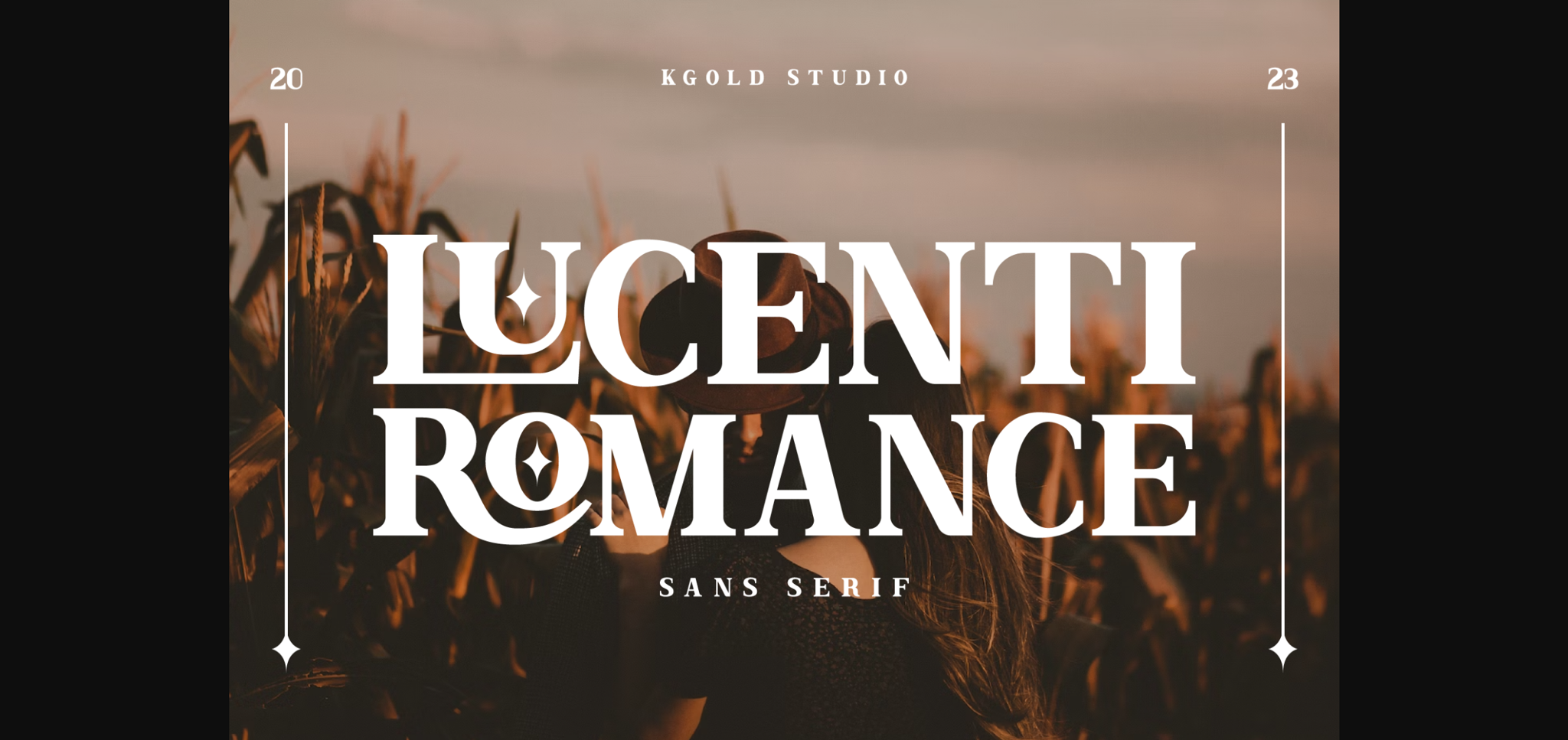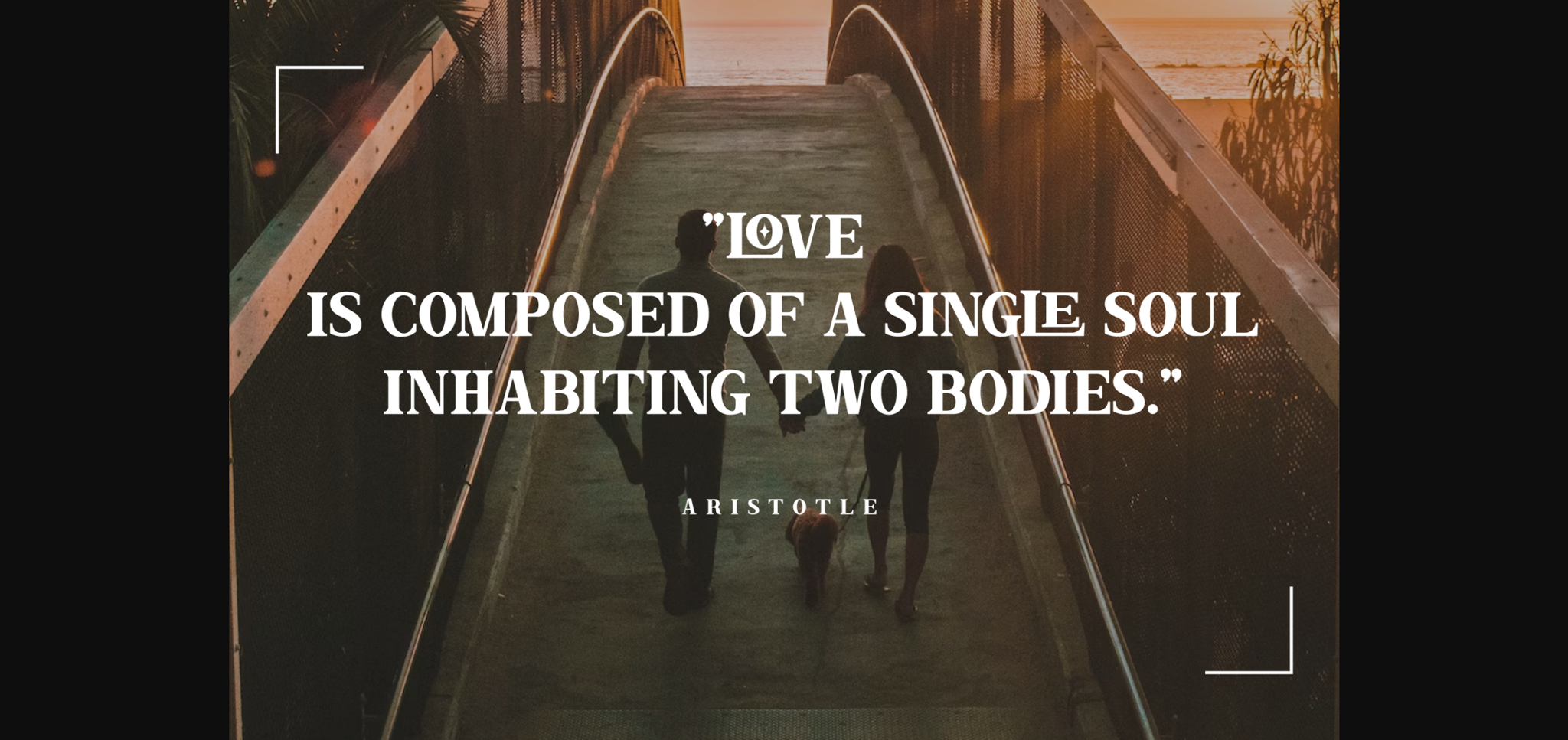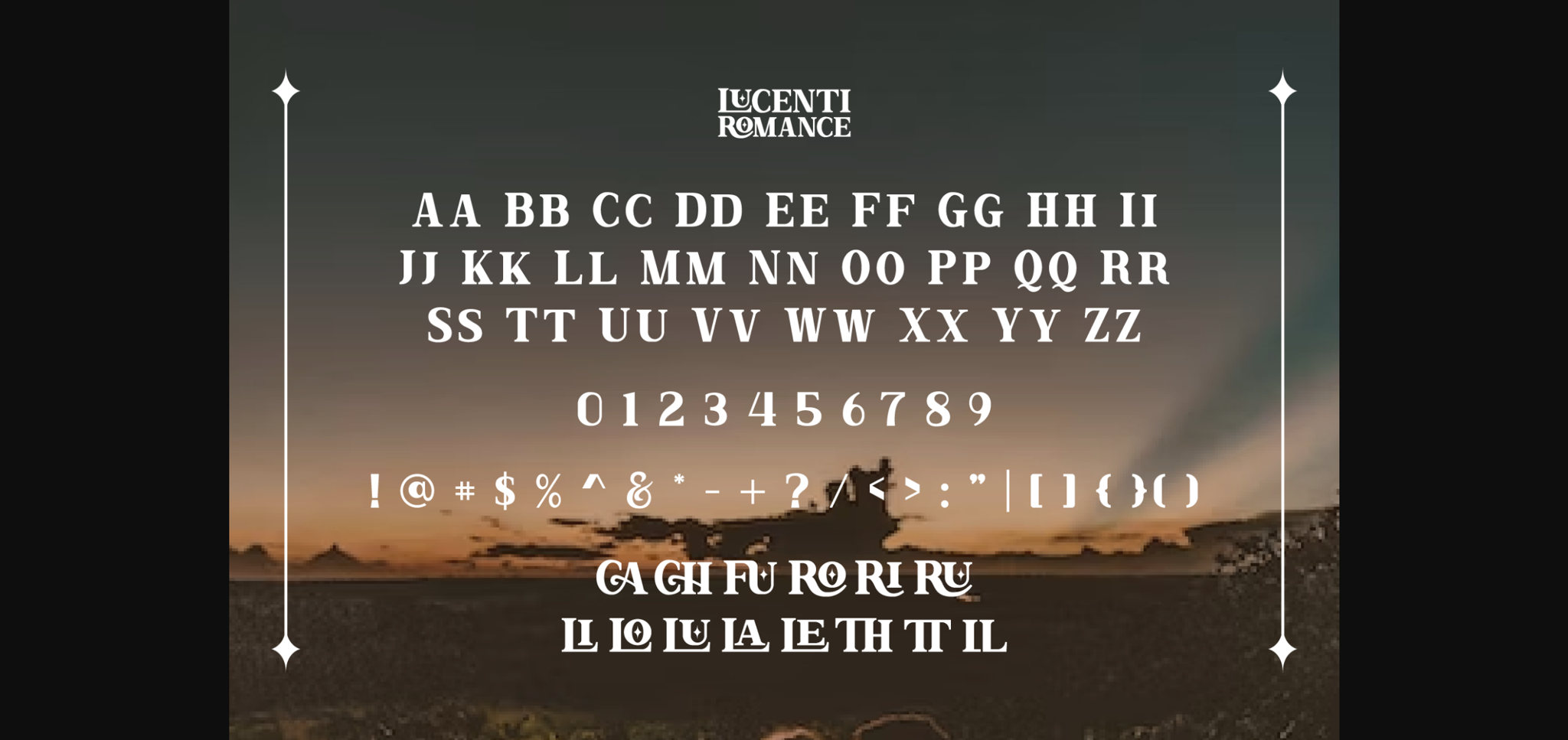
About Lucenti Romance Font
Introducing “Lucenti Romance,” a luxurious and romantic sans serif font that embodies timeless elegance and passion. This exquisite typeface is meticulously crafted to add a touch of sophistication to your design projects. With its unique blend of mewah and romance, “Lucenti Romance” is the perfect choice for wedding invitations, branding, logos, and more.